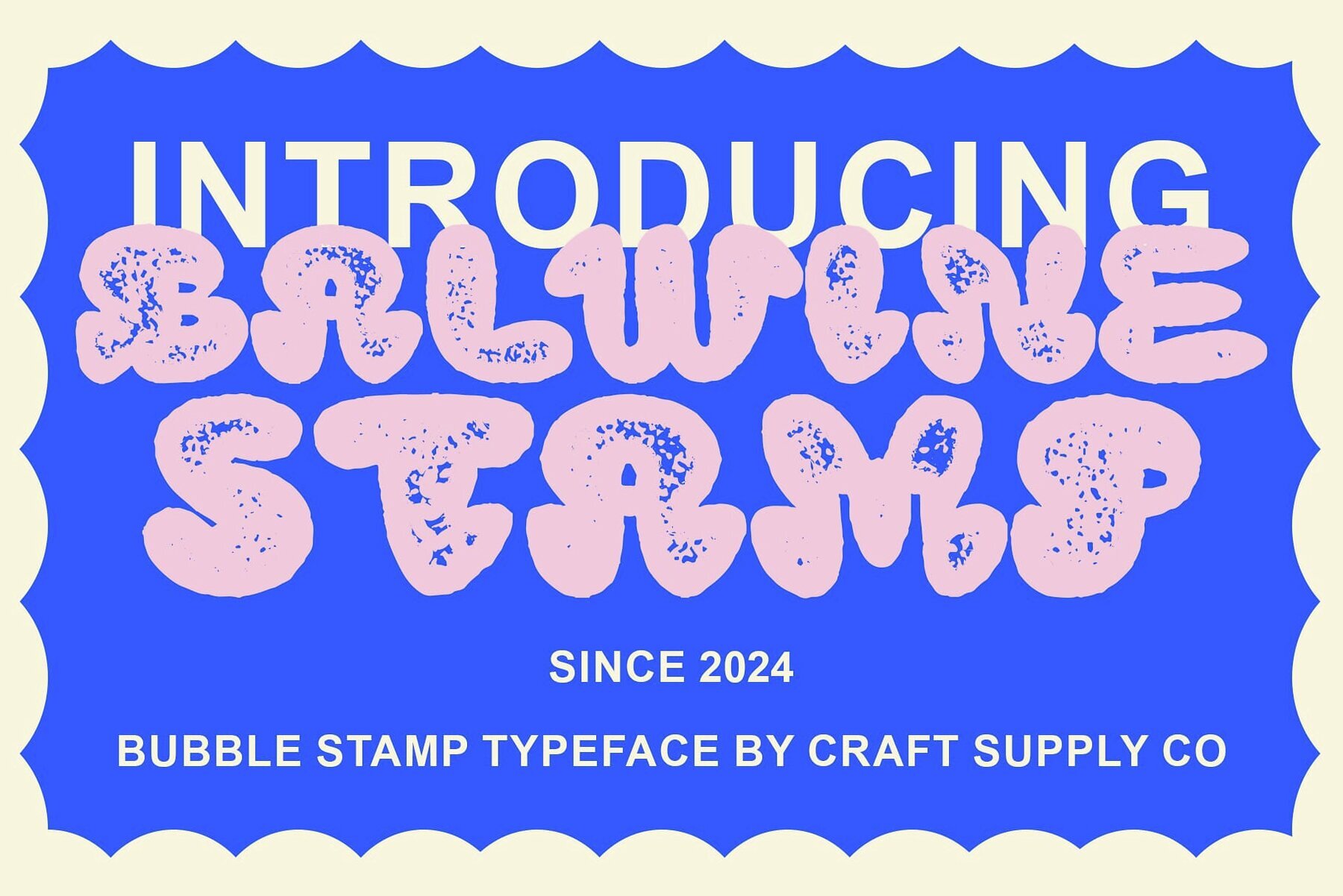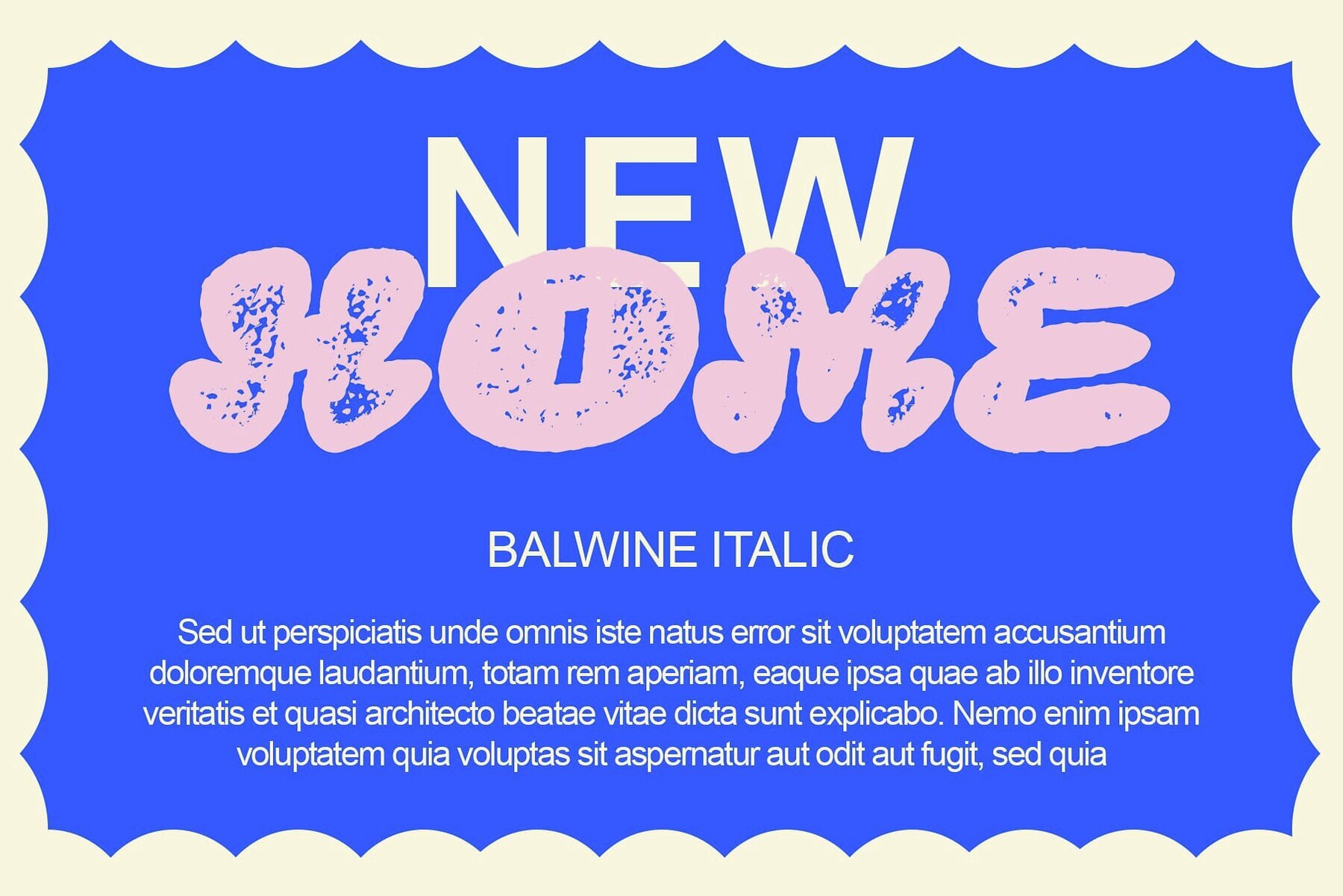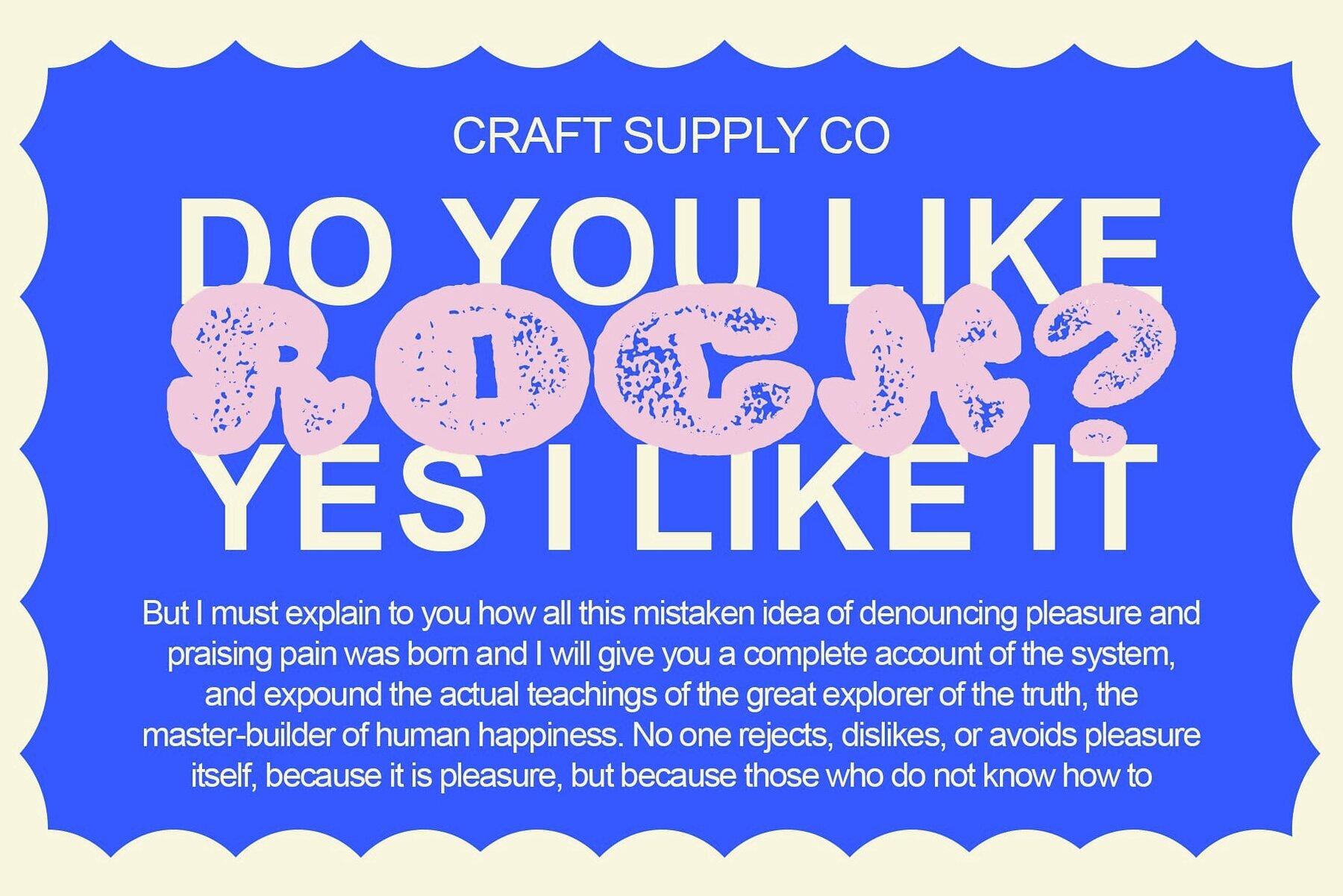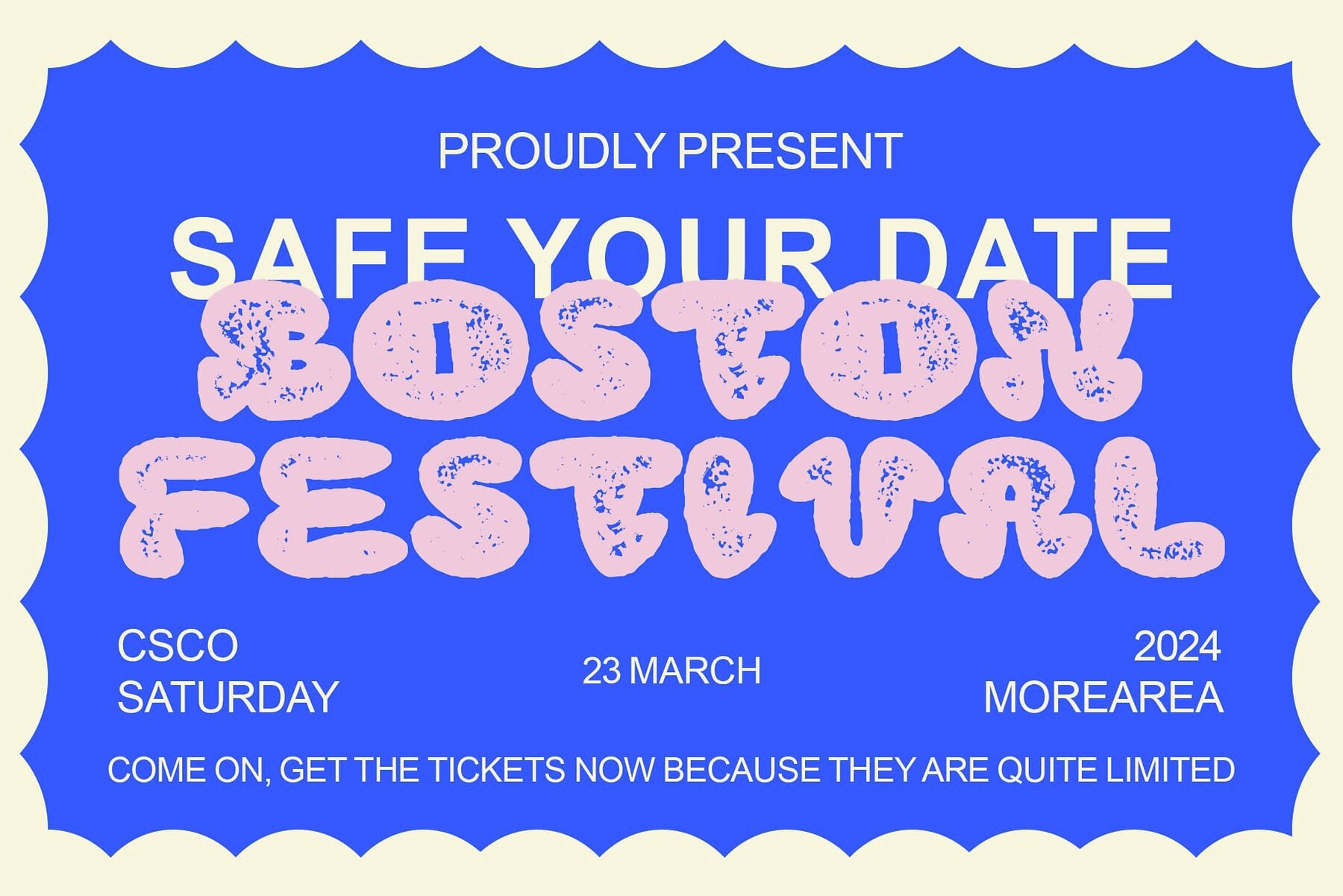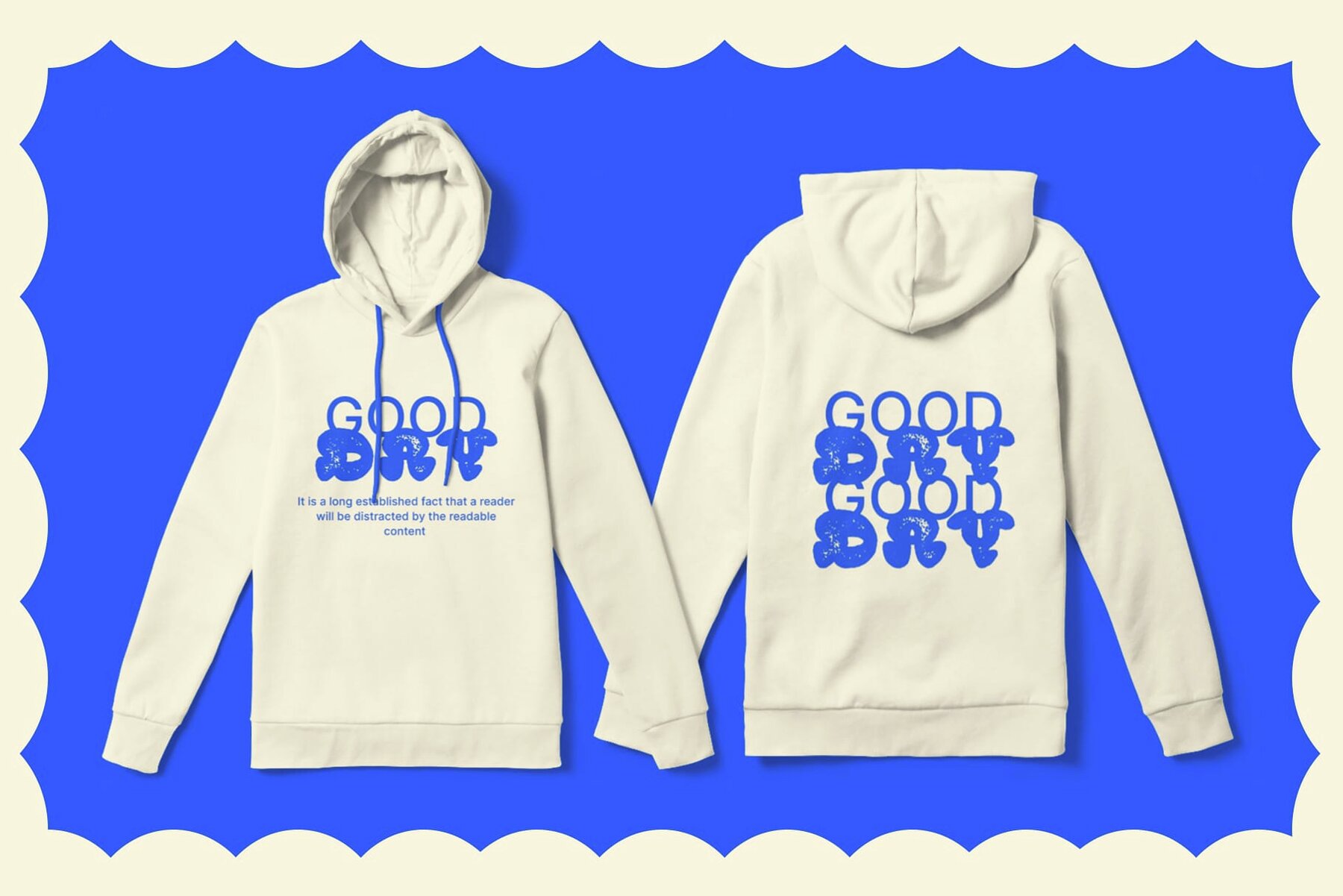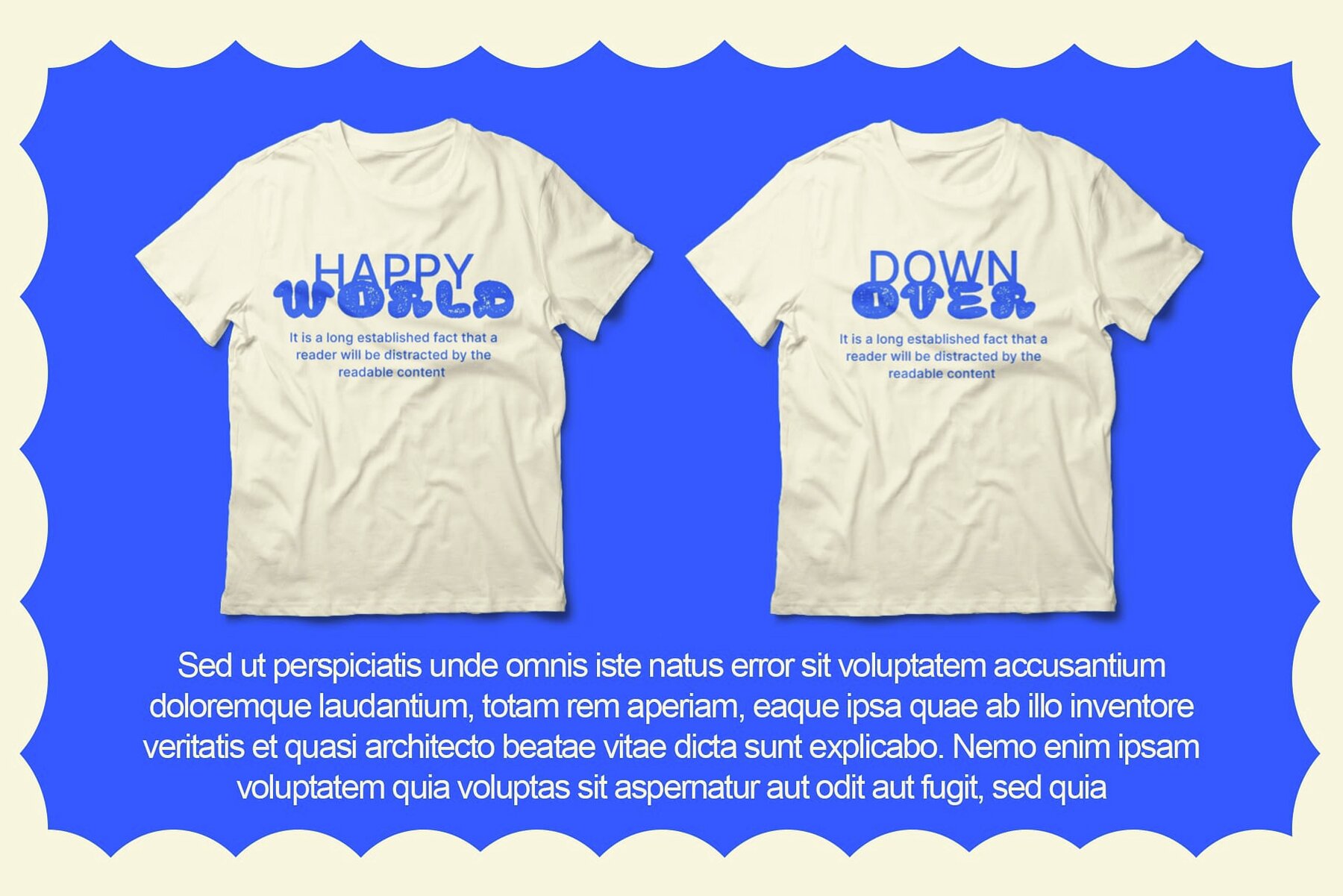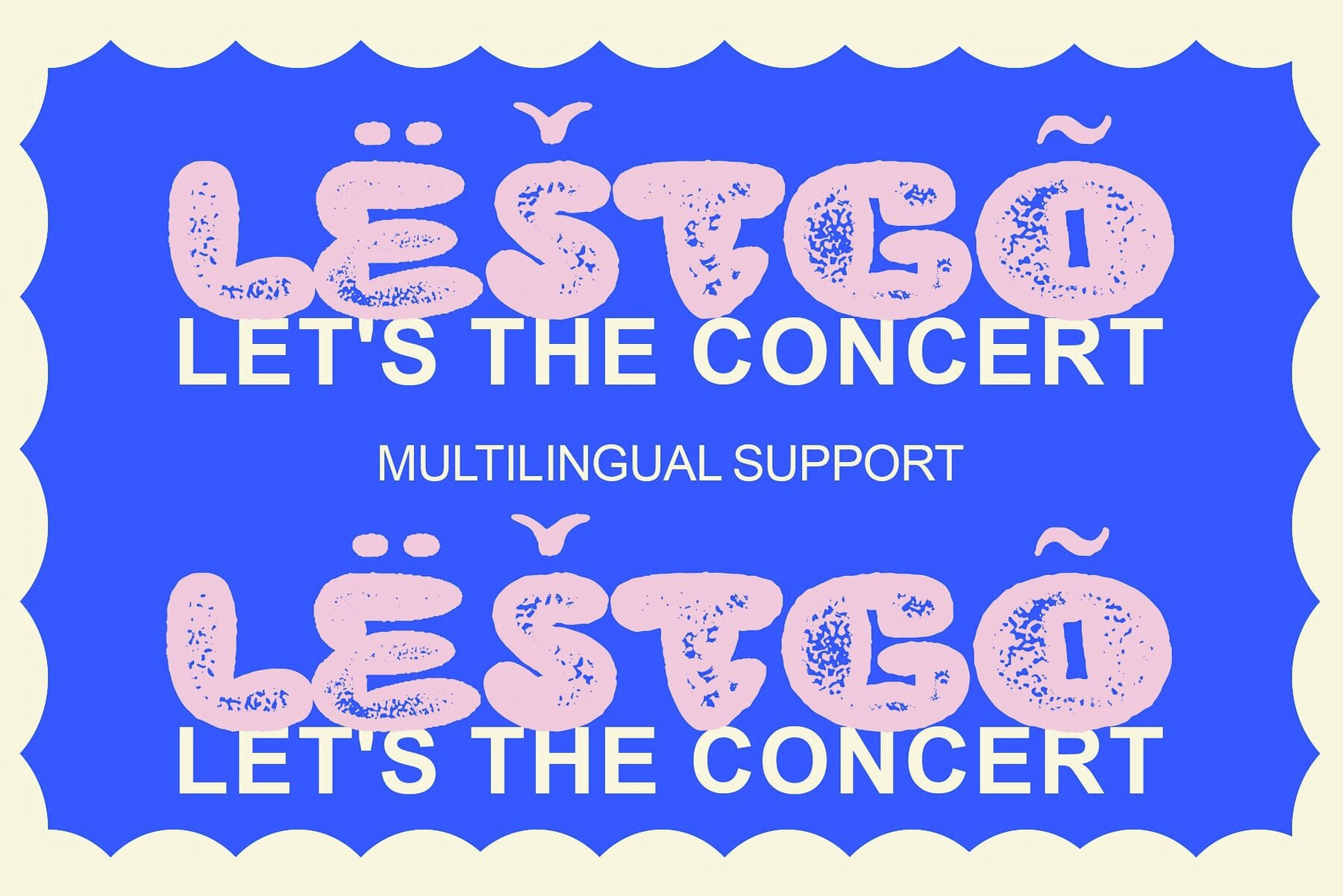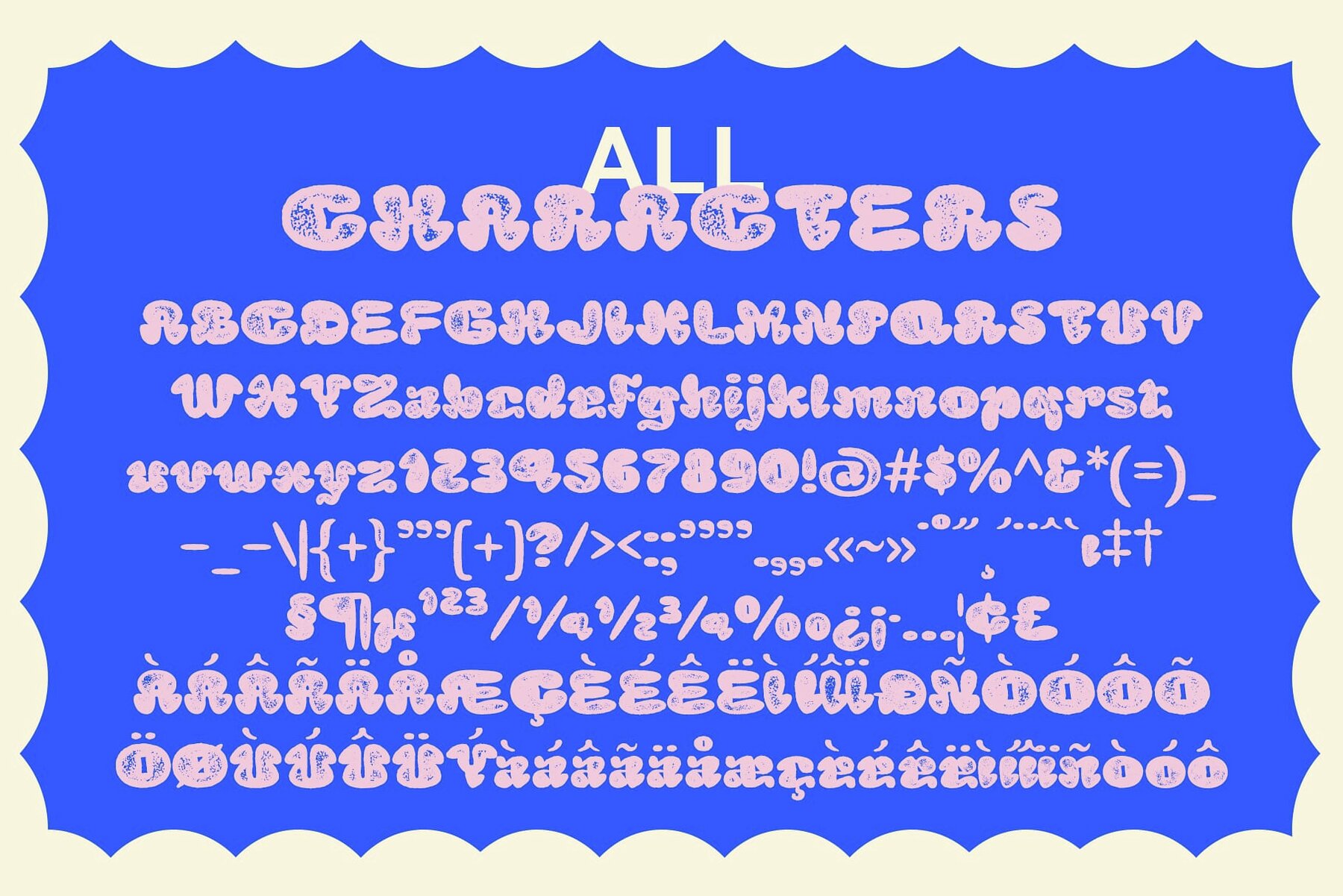
Balwine Stamp Font
Balwine Stamp brings a delightful, bubble-inspired design to your toolkit, reminiscent of cheerful balloons. Each character in this whimsical font exhibits a playful charm, making it ideal for eye-catching displays. The unique stamp effect lends a rustic, weathered appearance to the letters, evoking a nostalgic vibe with a touch of vintage allure.
Designed to be versatile, Balwine Stamp seamlessly fits various creative projects, from posters and invitations to logos and branding. It combines the joyful essence of vintage aesthetics with modern functionality, infusing your designs with playful sophistication. The font includes uppercase and lowercase characters, numerals, punctuation, accents for multilingual support, and PUA encoding, ensuring ease of use without specialized software. Add Balwine Stamp to your repertoire and let its whimsical, retro charm transform your projects.